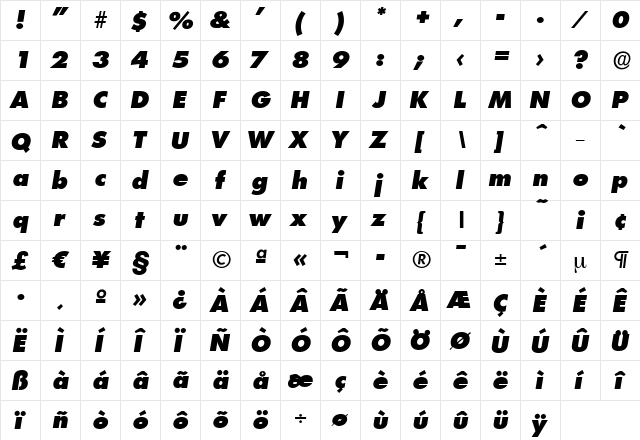
PeterBecker-Heavy Italic
Design Context for PeterBecker-Heavy Typeface
PeterBecker-Heavy is a composed and adaptable typeface that performs quietly and consistently across a wide range of design contexts. Its italic angle brings a sense of urgency and motion to the letterforms.
Pro Tip: Try PeterBecker-Heavy for annotation and caption copy alongside an upright companion — the contrast in angle creates a dynamic but ordered typographic system.